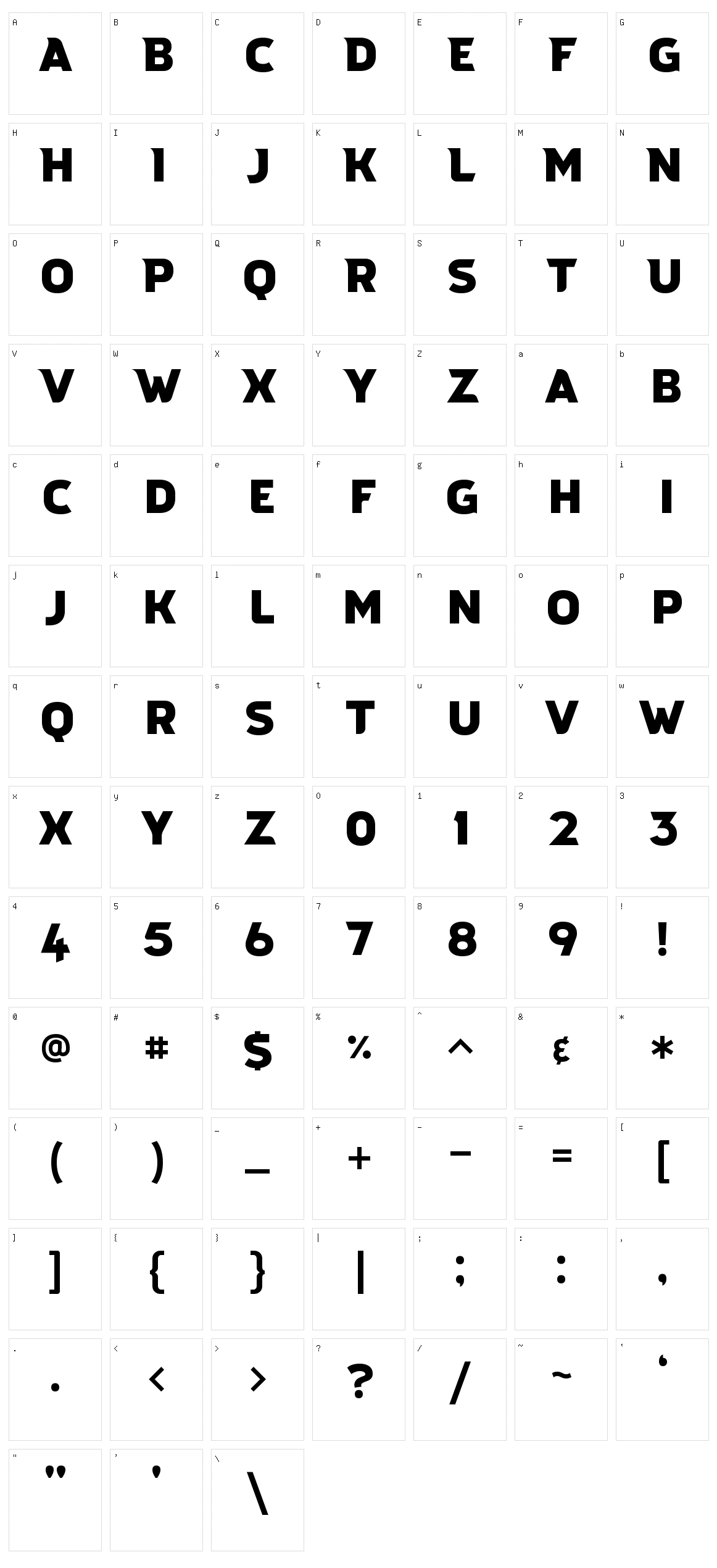
The free font Ustulo is carefully designed by Christiaan van Wyk, showcasing a thoughtful balance of creativity and usability and falls under the Sans serif font style. When you download the ZIP file, it contains only 189.76 KB of font files, making it lightweight and quick to download. Please review the license details below to understand permitted usage and distribution rights. If license information is not available, we recommend using this font for personal projects only or contacting the author directly for commercial usage permissions.